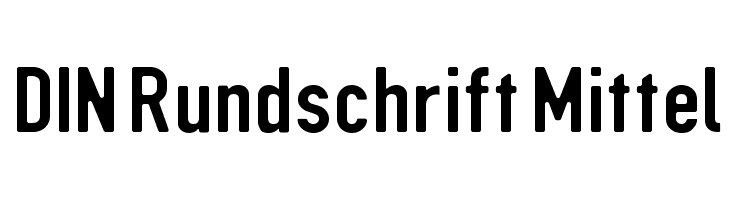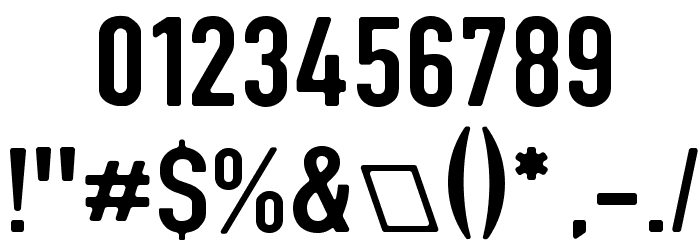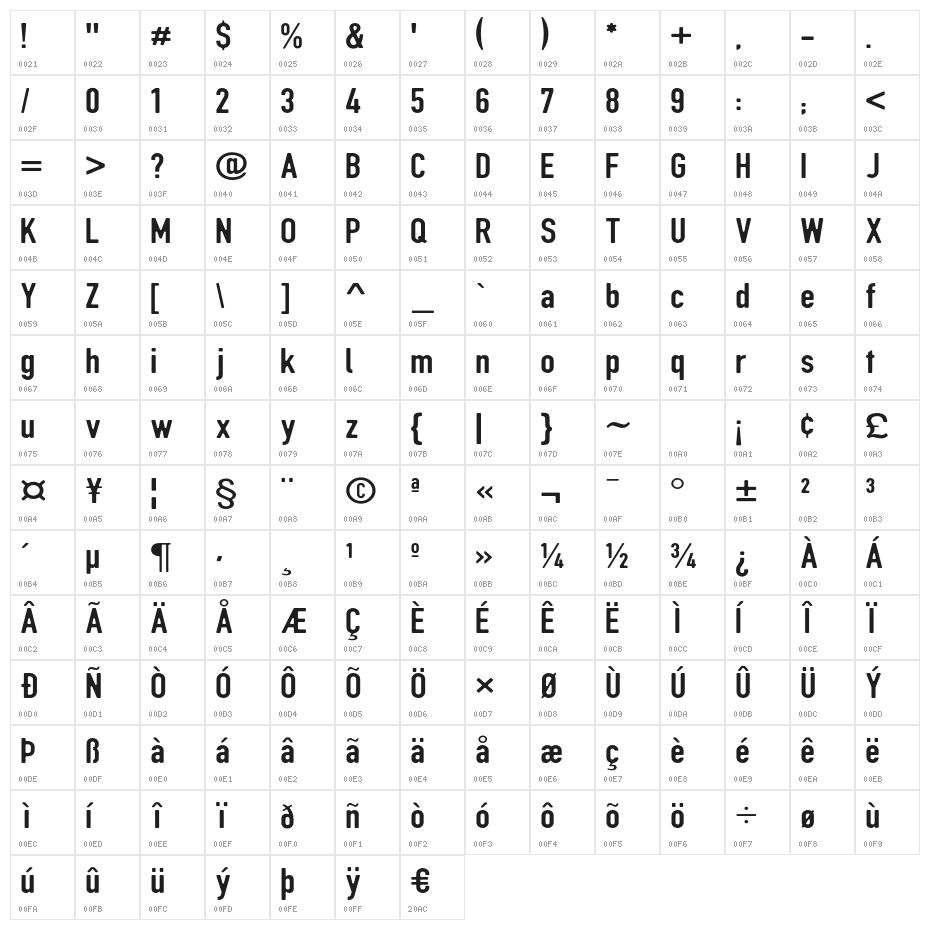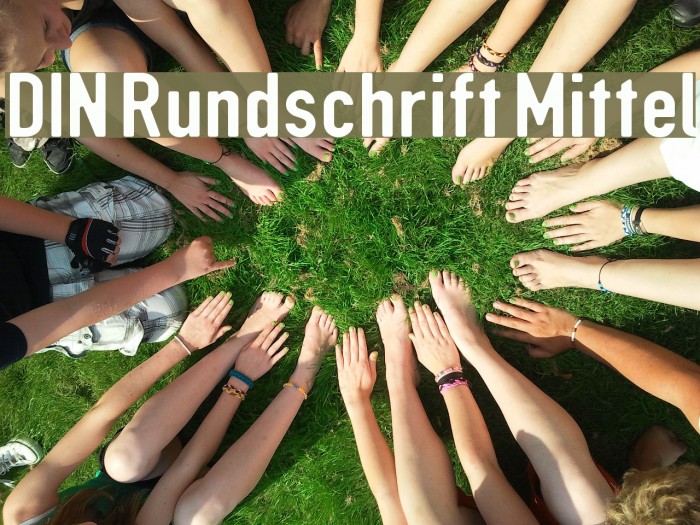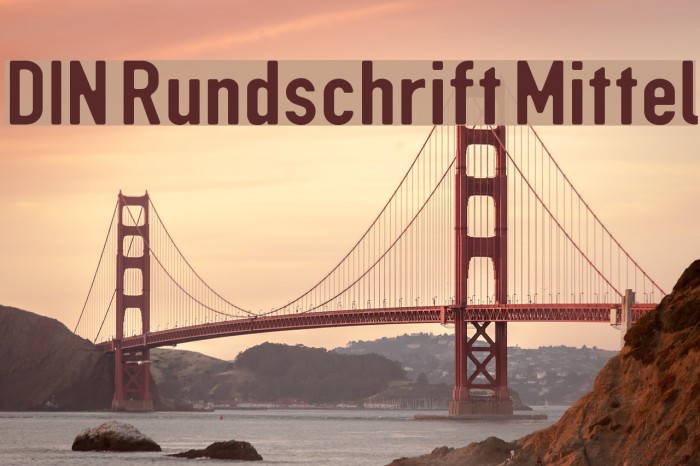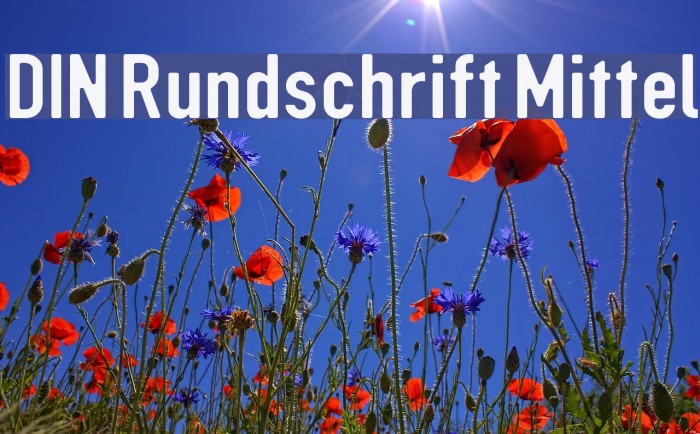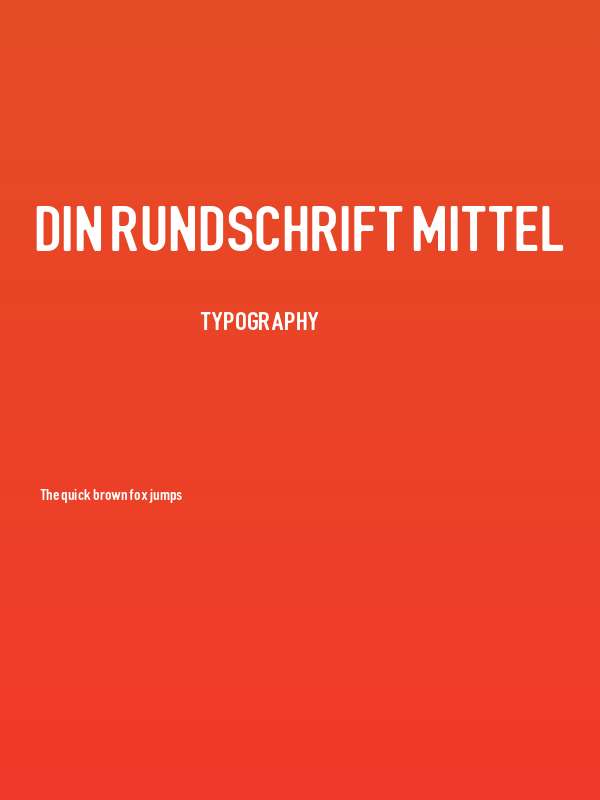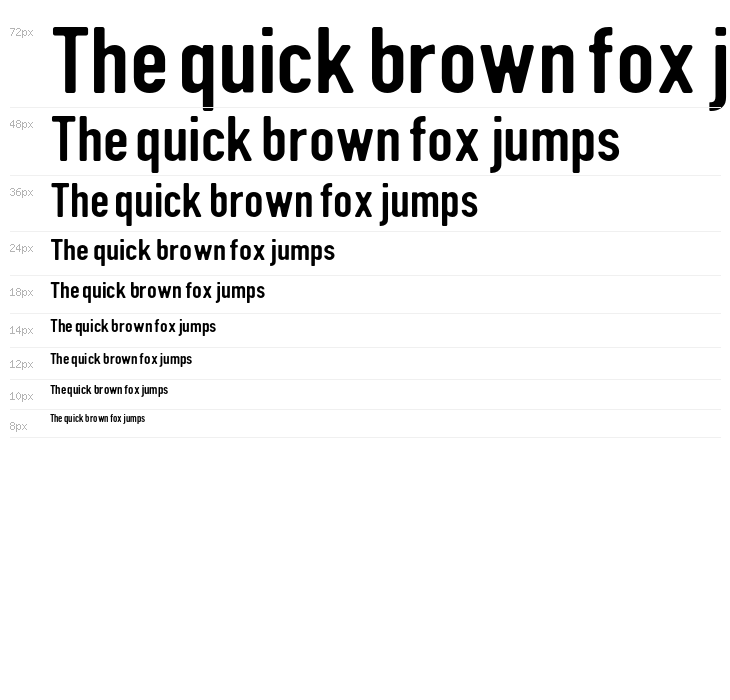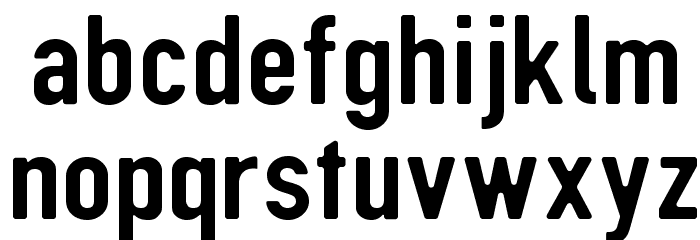
DIN Rundschrift Mittel Font
DIN Rundschrift Mittel Description
This font features a clean and modern sans-serif design with rounded edges, giving it a friendly and approachable appearance. The characters are uniform in width, contributing to a balanced and harmonious look. The uppercase and lowercase letters maintain a consistent style, with a slight geometric influence visible in the shapes. The numerals are clear and legible, making them suitable for various applications. The special characters are well-integrated, maintaining the overall aesthetic of the font. This typeface is versatile, suitable for both digital and print media, and can be used in a variety of design contexts.